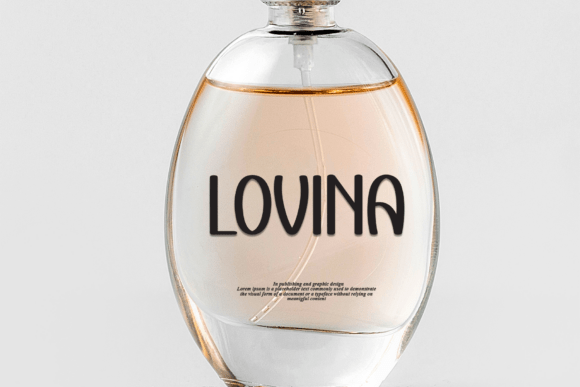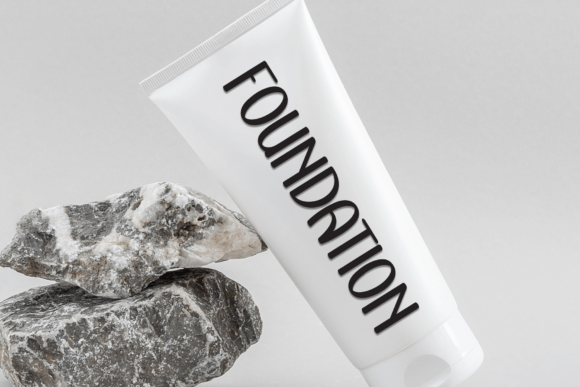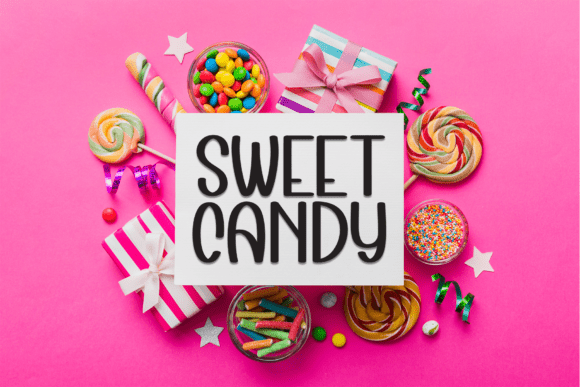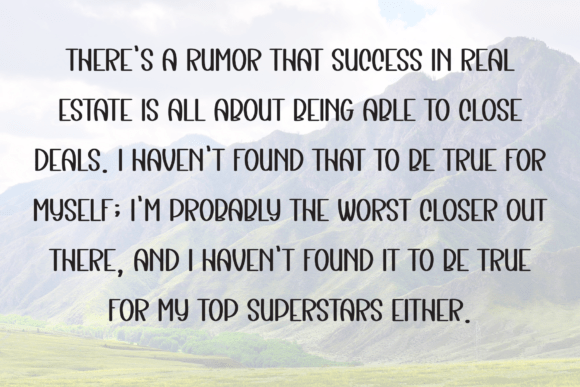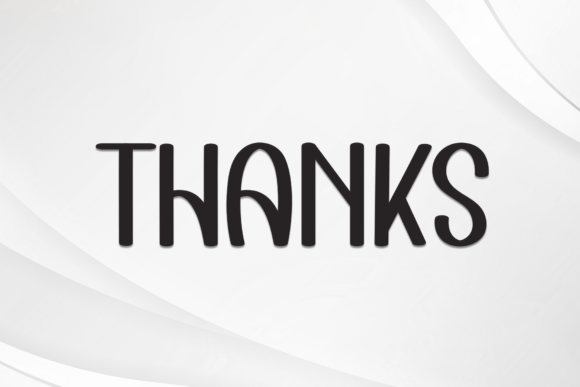
The Joy of Alphabet Font: Adding Playfulness to Your Designs
I’ll never forget the time I was working on a wedding invitation project, and my client asked for a font that would make their guests smile. I scoured the internet, trying out font after font, but nothing seemed quite right. That was until I stumbled upon Alphabet Font. This delightfully fun and whimsical handwritten display font burst with personality, and I knew I had found the perfect fit. In this article, I’ll share my love for Alphabet Font, its features, and how to make the most of it in your designs.
A Personal Review: What I Love About Alphabet Font
So, what makes Alphabet Font so special? Here are a few things that I love:
- ✨ Its bouncy strokes and friendly vibe make it perfect for adding a sense of playfulness and warmth to your designs.
- 🌈 The cheery script is perfect for splashing joy into wedding invitations, greeting cards, party décor, or any creative project craving a dose of lighthearted charm.
While Alphabet Font is a wonderful addition to any design project, there are a few small quirks to be aware of:
- 🤔 The font may not be the best fit for very formal or traditional designs, as it has a distinctly playful and whimsical feel.
A Practical Guide to Using Alphabet Font
The Story Behind Alphabet Font
According to the font’s designer, Alphabet Font was inspired by the joy of childhood and the playfulness of handwritten letters. The designer wanted to create a font that would bring a smile to people’s faces and add a touch of whimsy to their designs. With its bouncy strokes and friendly vibe, Alphabet Font is sure to delight designers and their clients alike.